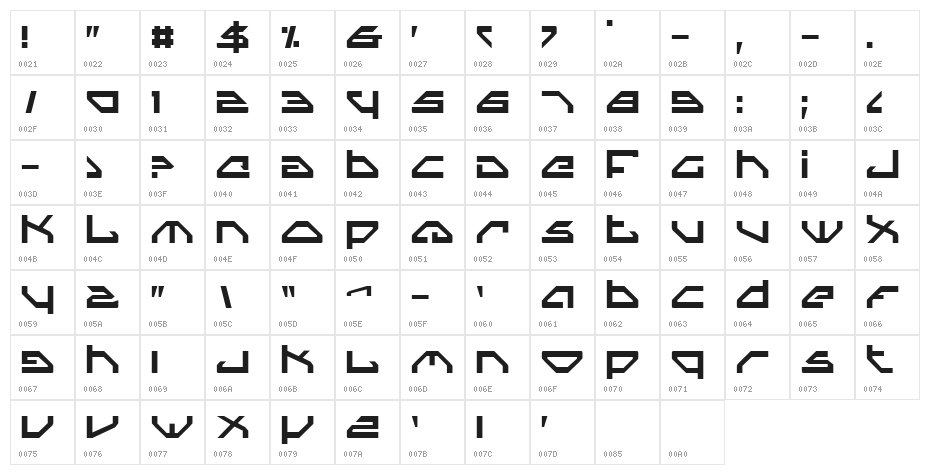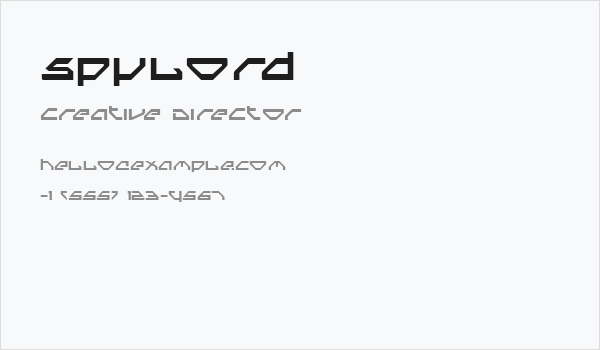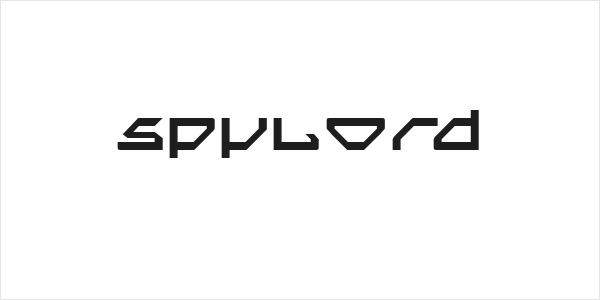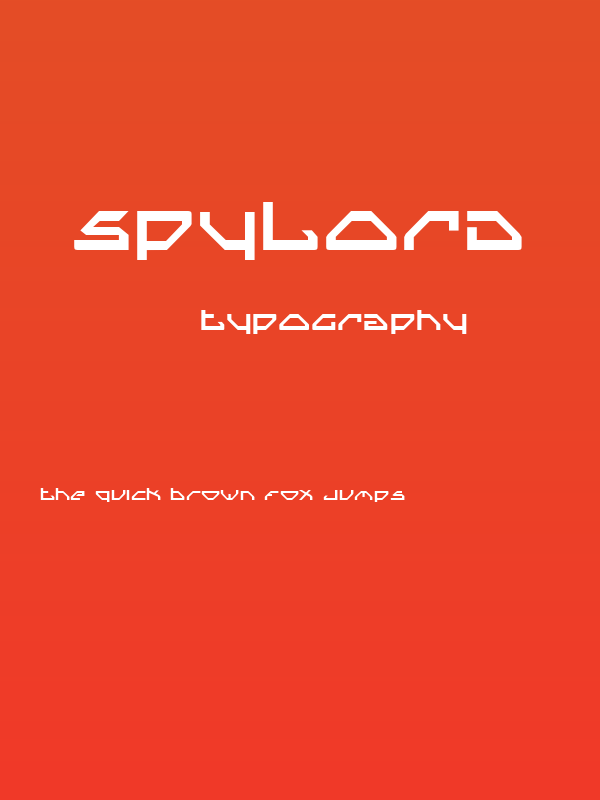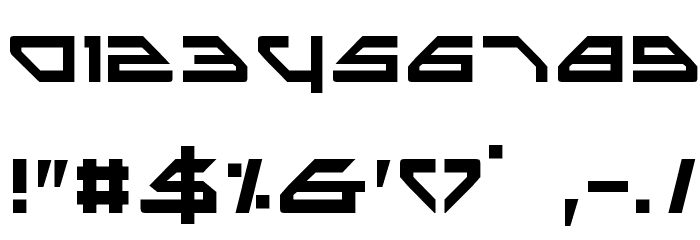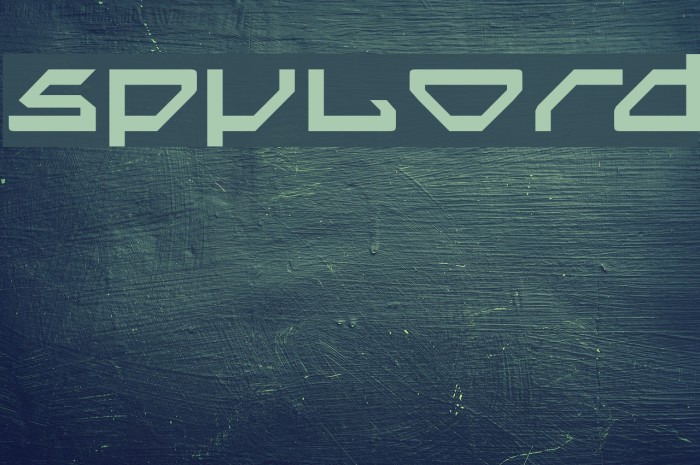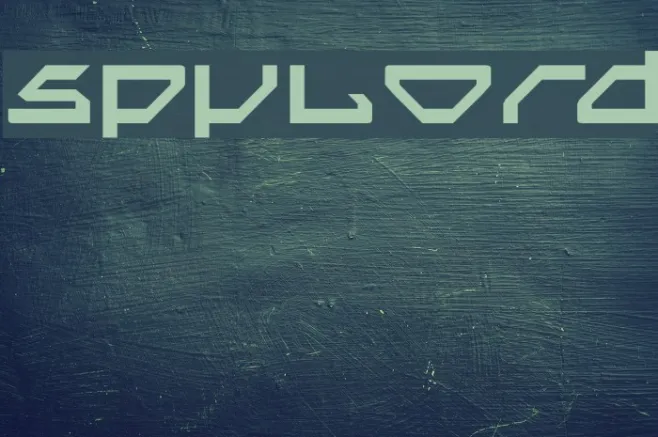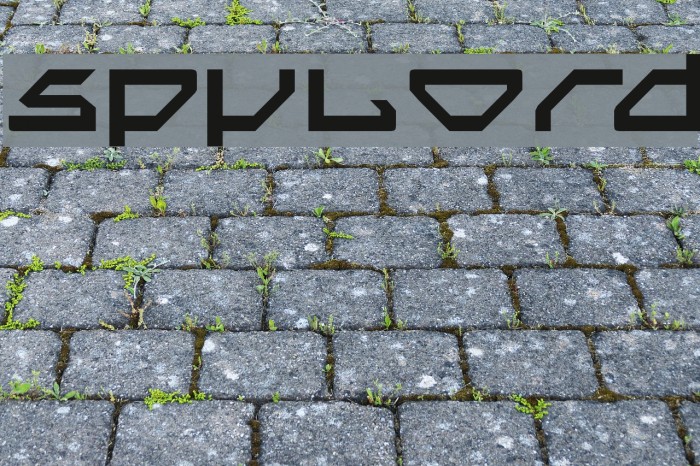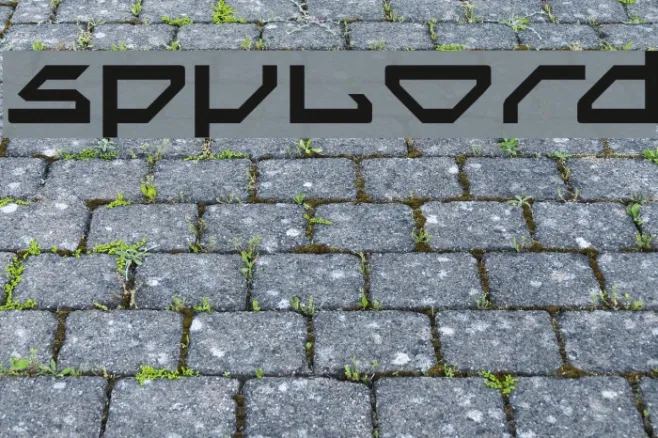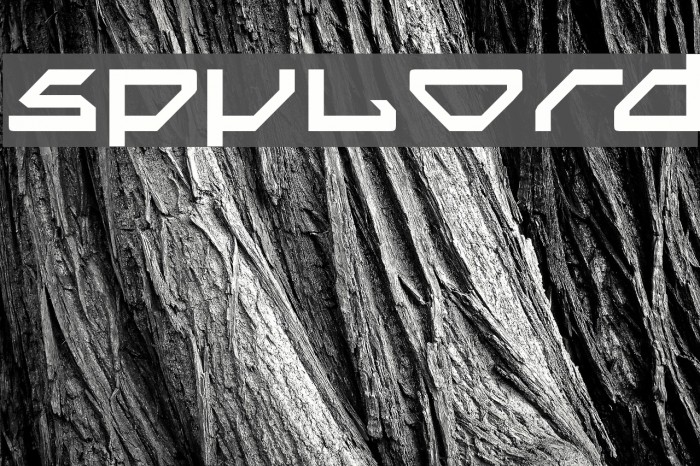
Spylord Font
Spylord Description
This font features a futuristic and angular design, characterized by its sharp edges and geometric shapes. The letters are constructed with a consistent thickness, giving it a bold and striking appearance. The uppercase and lowercase letters maintain a uniform style, with distinctive cuts and angles that create a sense of movement and modernity. The numerals and special characters follow the same design principles, ensuring a cohesive look across all glyphs. This font is ideal for projects that require a modern, tech-inspired aesthetic.
| Proposed Projects | Ideal for sci-fi movie posters, tech branding, video game titles, and futuristic-themed designs. |